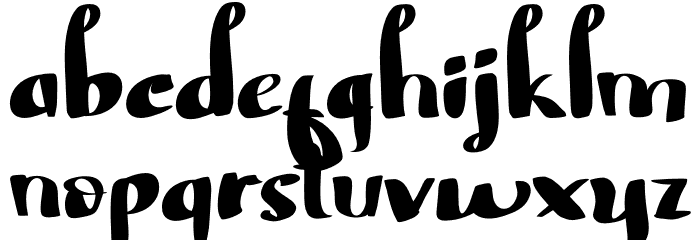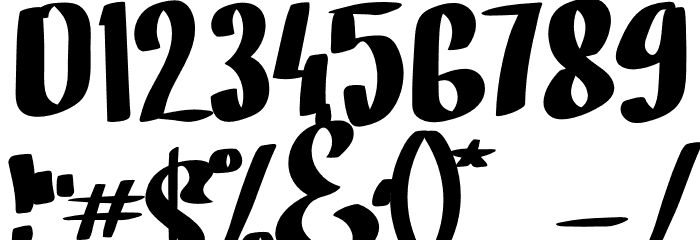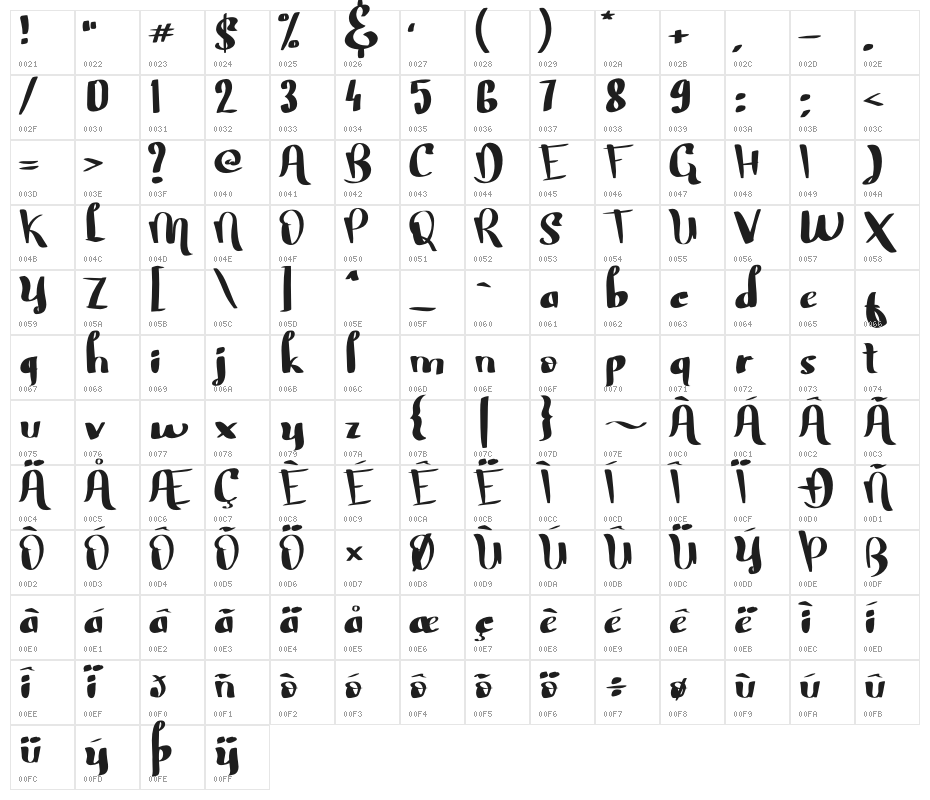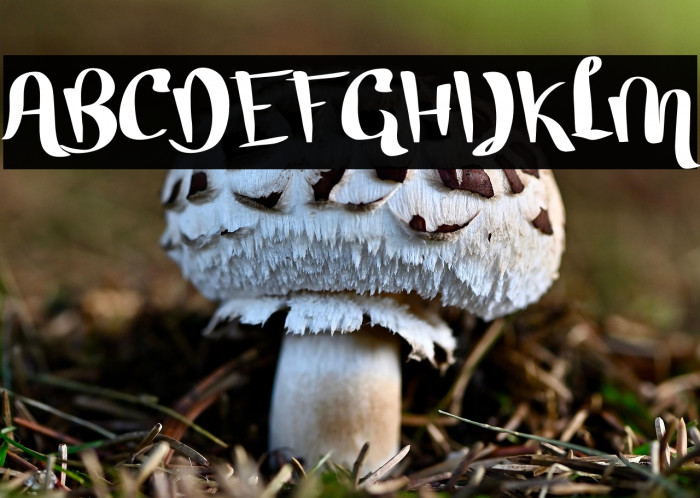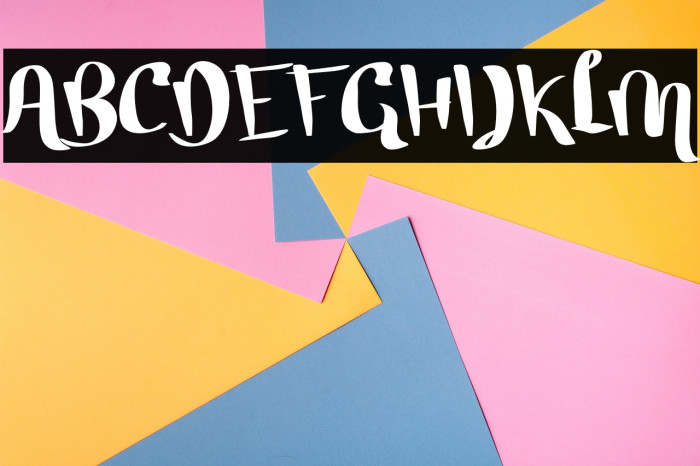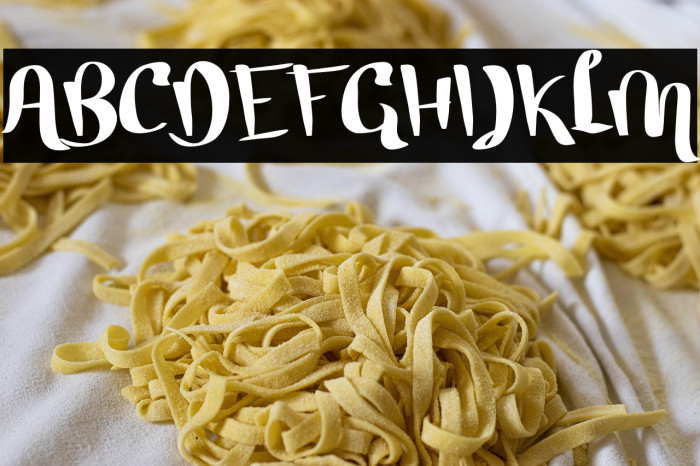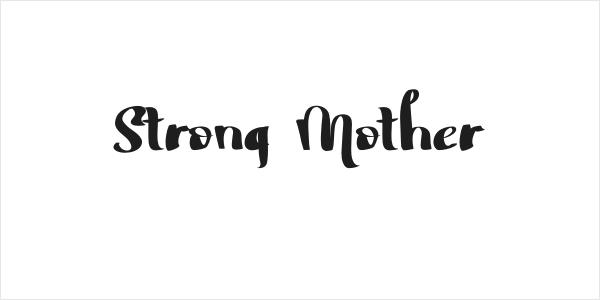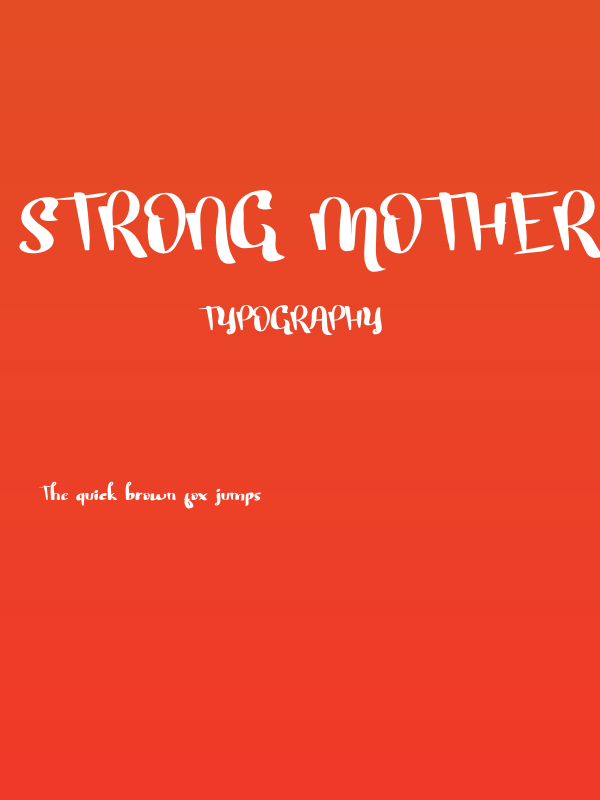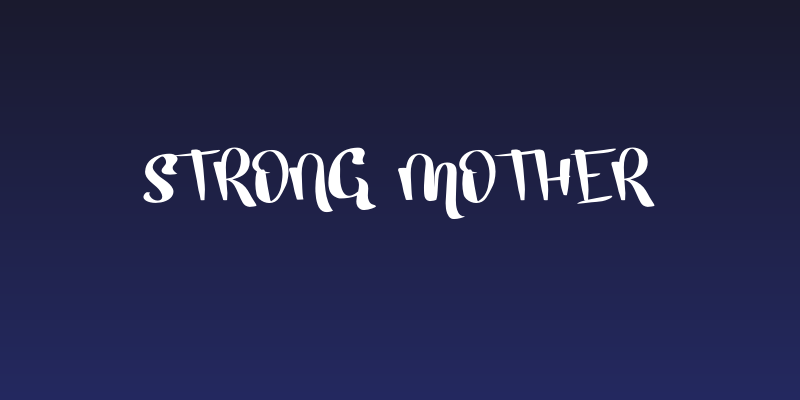
Strong Mother Font
This font features a bold, expressive style with a handwritten flair. The characters are thick and have a playful, dynamic quality, with varying stroke widths that add a sense of movement and energy. The uppercase letters are particularly striking, with unique curves and angles that give them a distinctive look. The lowercase letters maintain this lively style, offering a cohesive appearance across the alphabet. Numbers and special characters are equally bold, ensuring consistency throughout. This font's overall design is both modern and artistic, making it suitable for creative projects.
A bold, expressive handwritten font with dynamic strokes and a modern flair.
- Proposed Projects: Ideal for branding, poster design, social media graphics, and creative projects that require a bold, artistic touch.
- Category: Handwritten
- Overall Style: Modern, Artistic